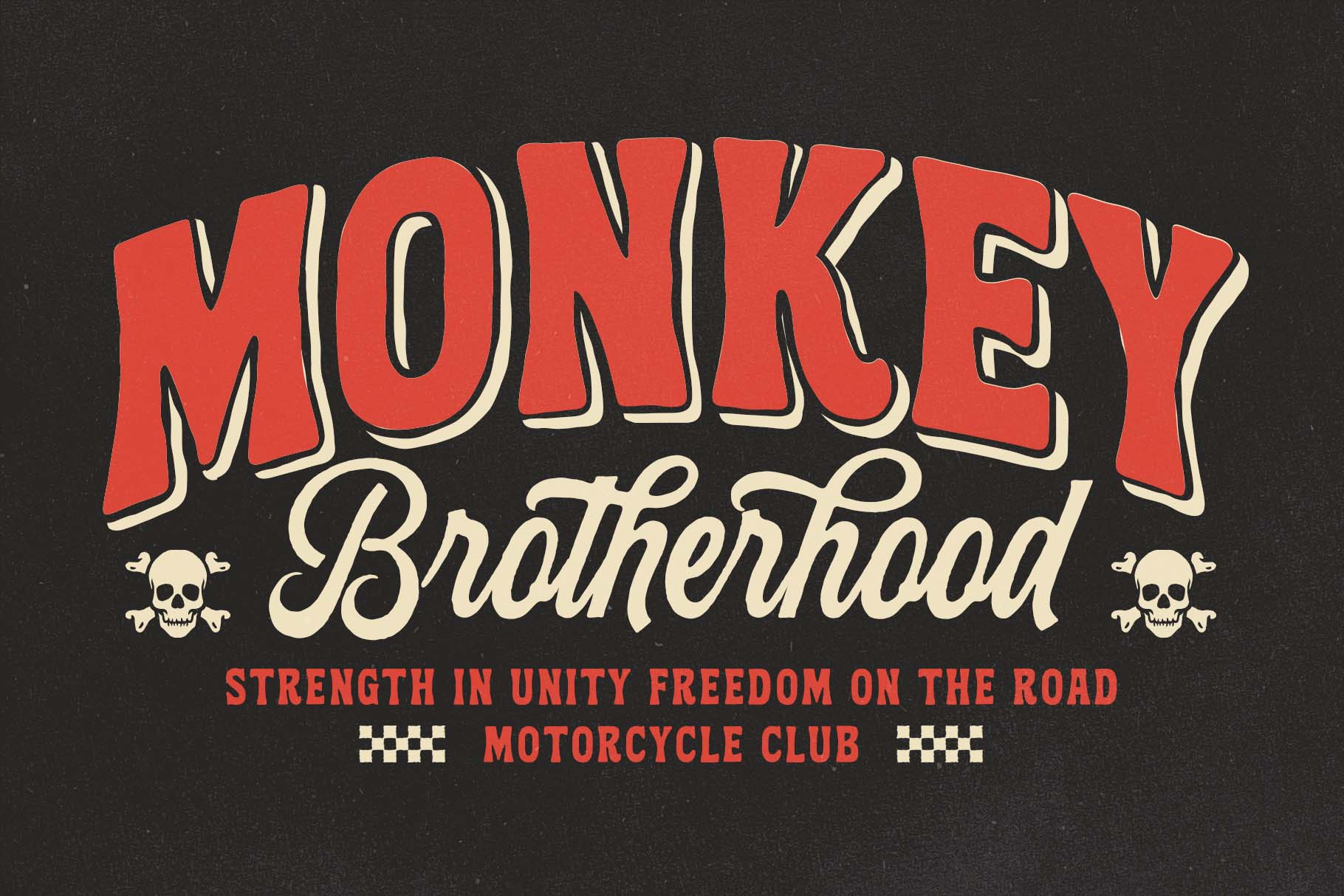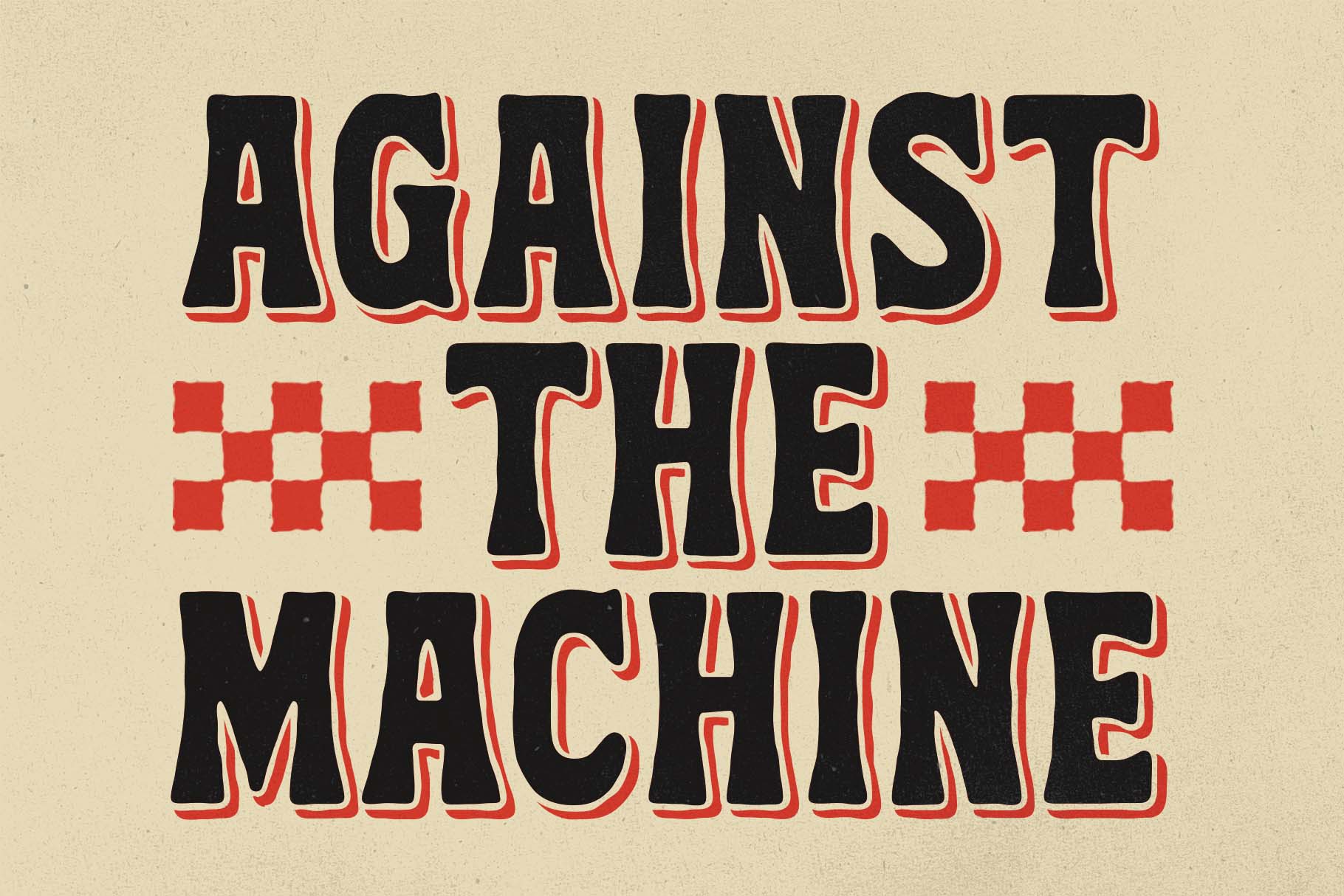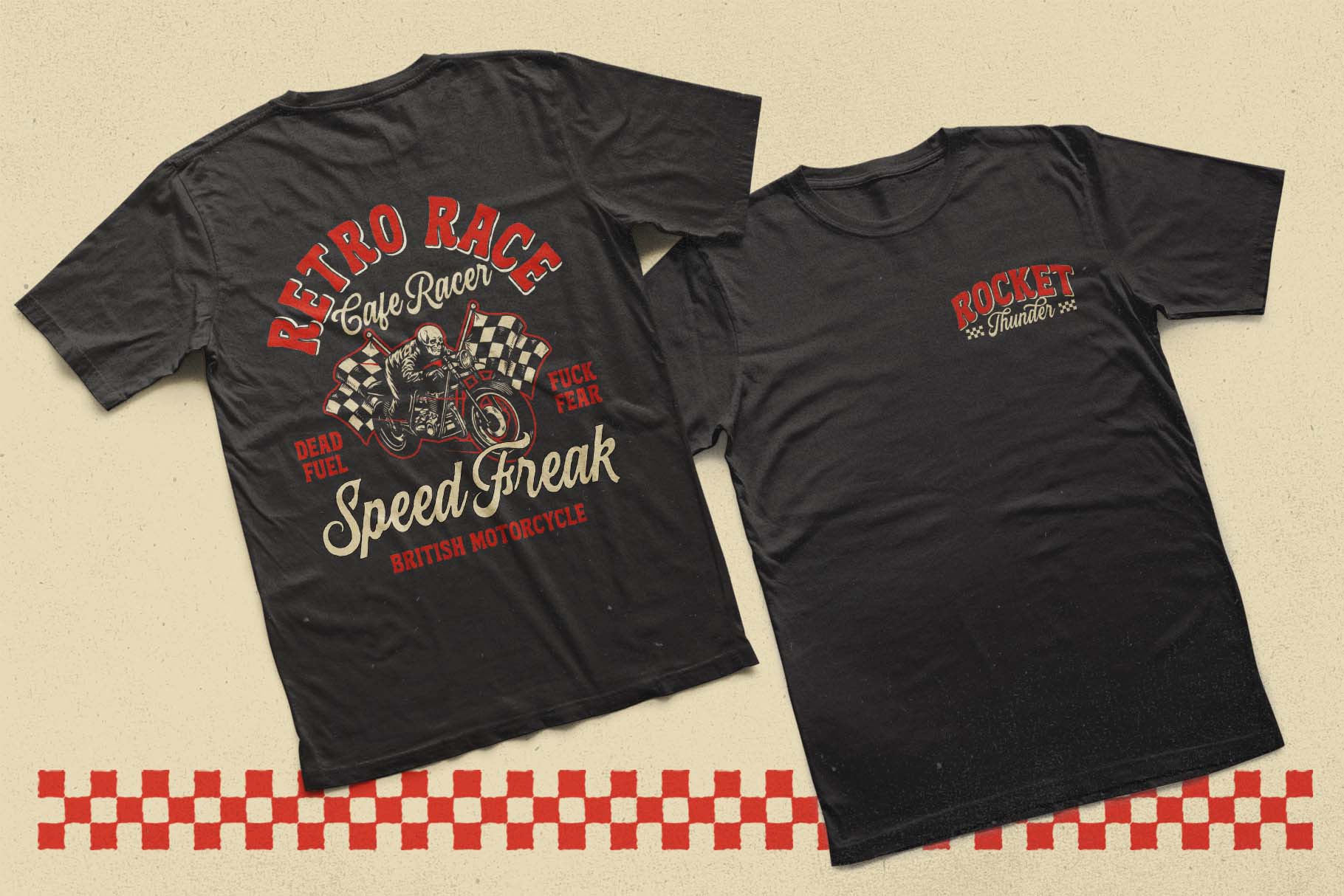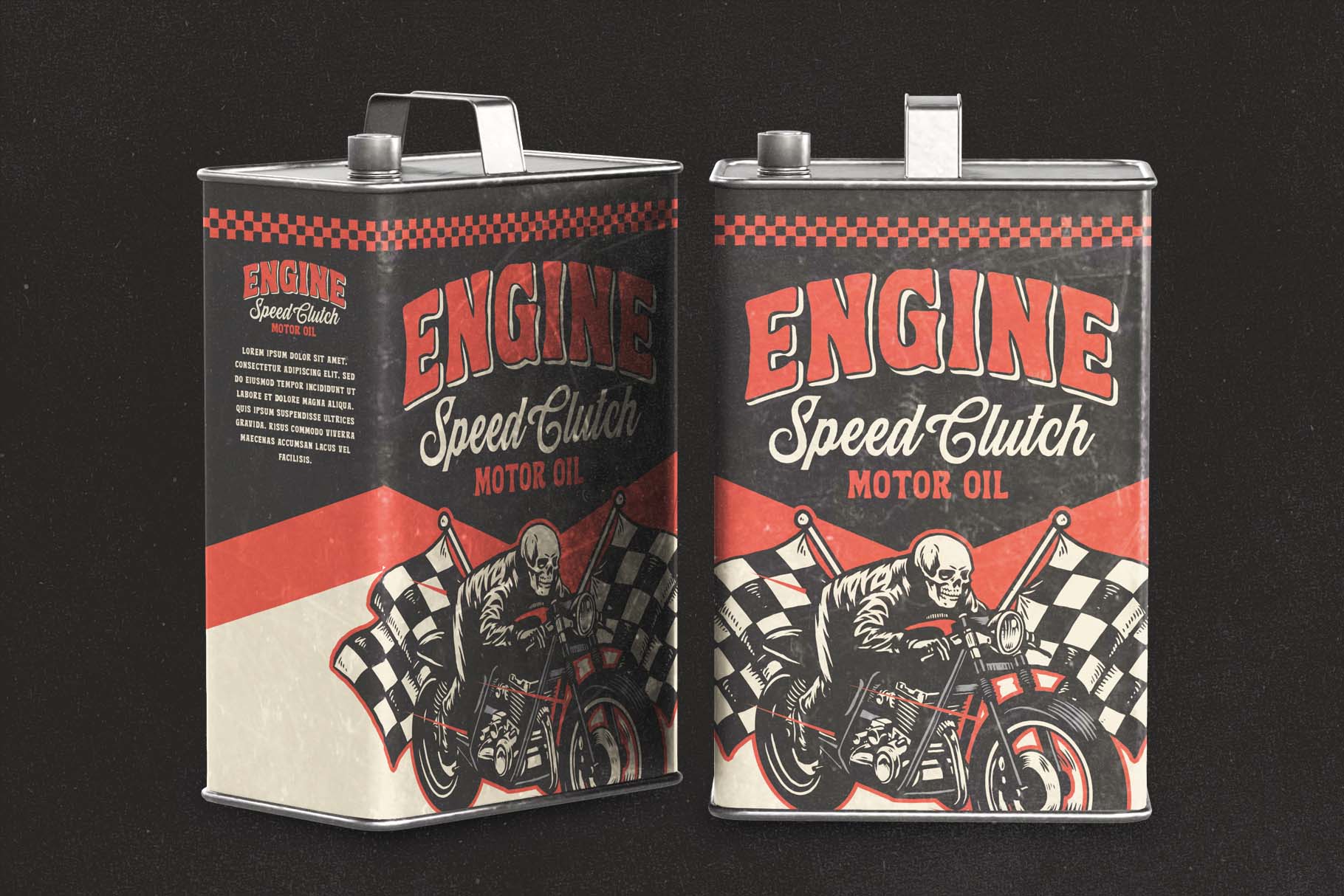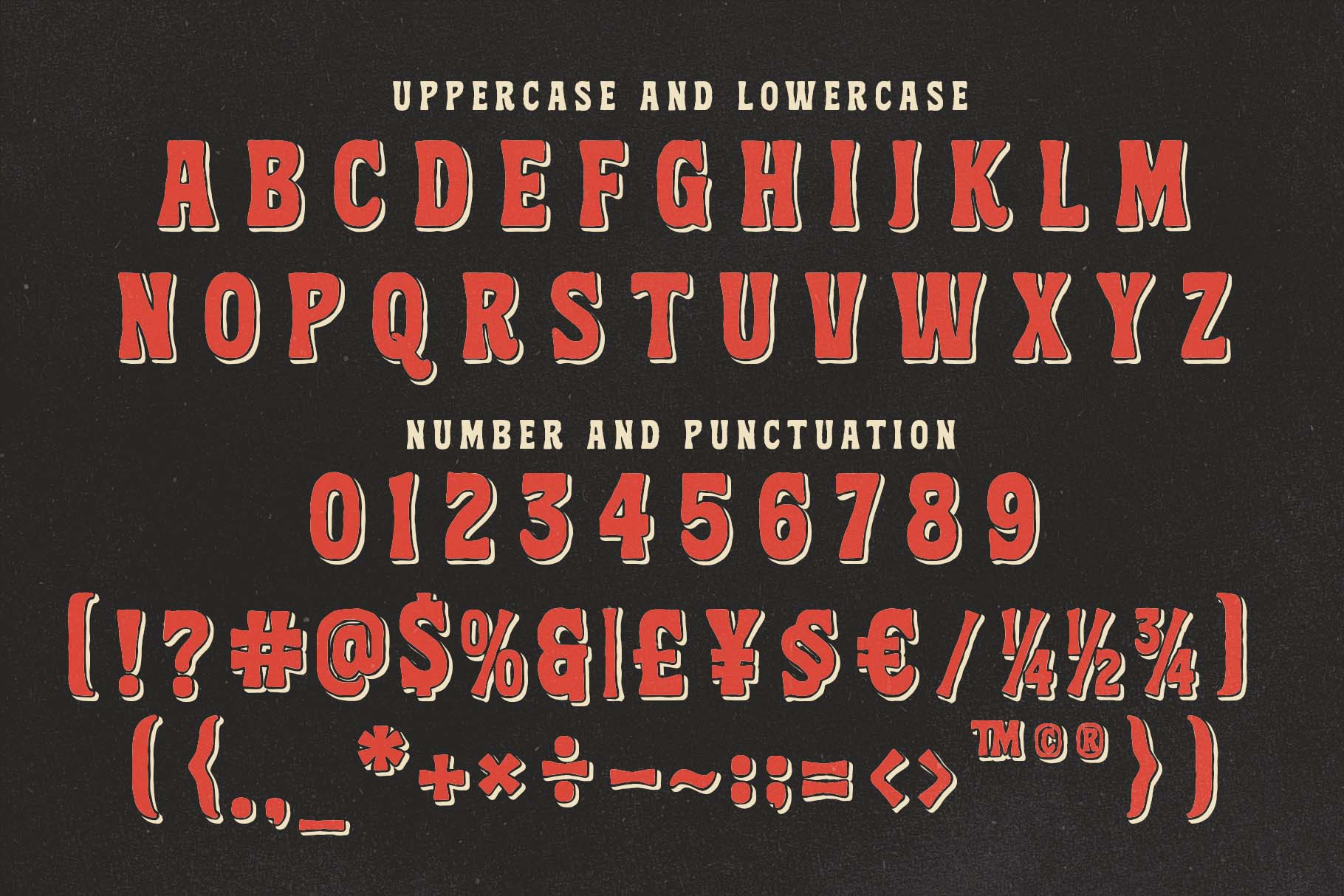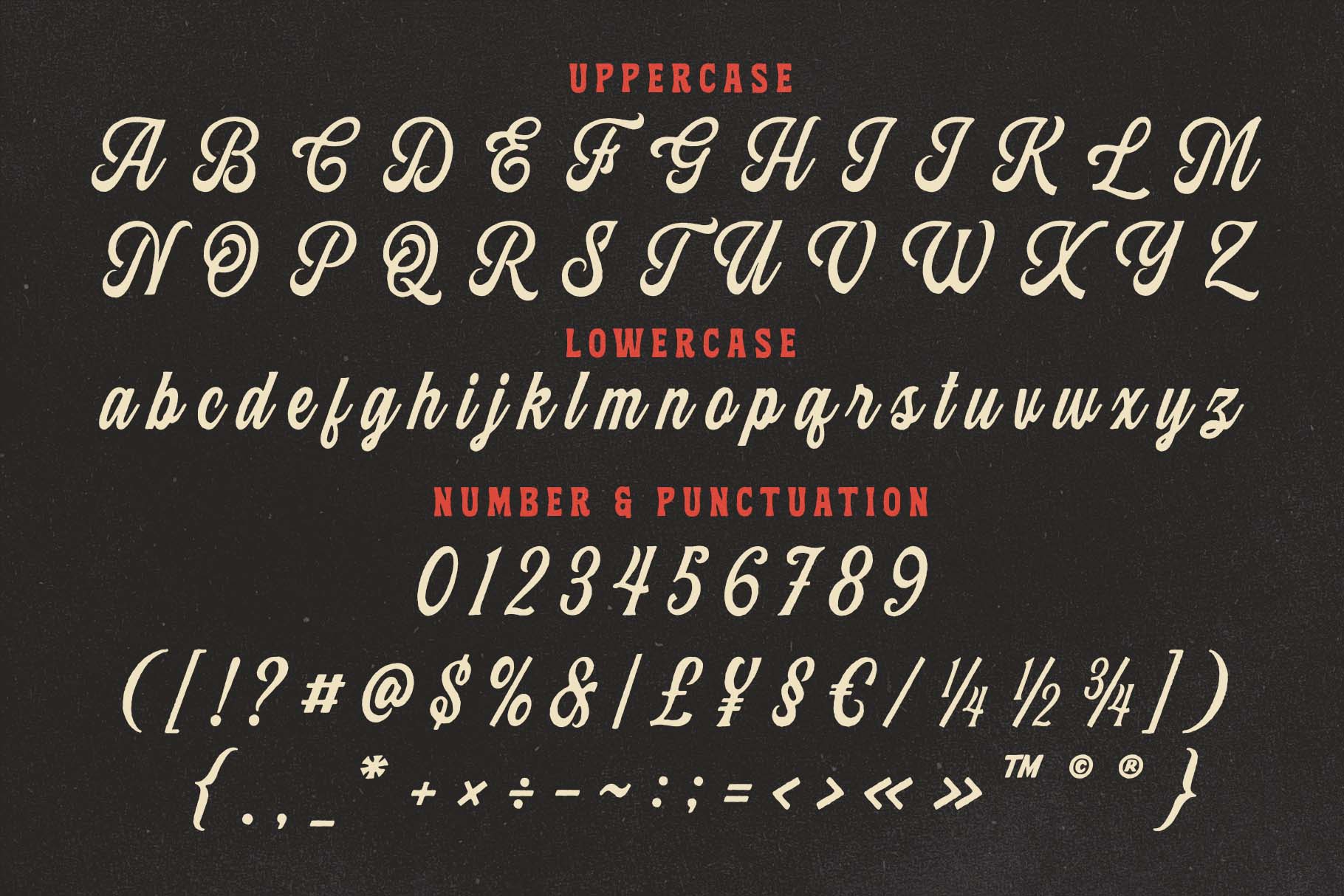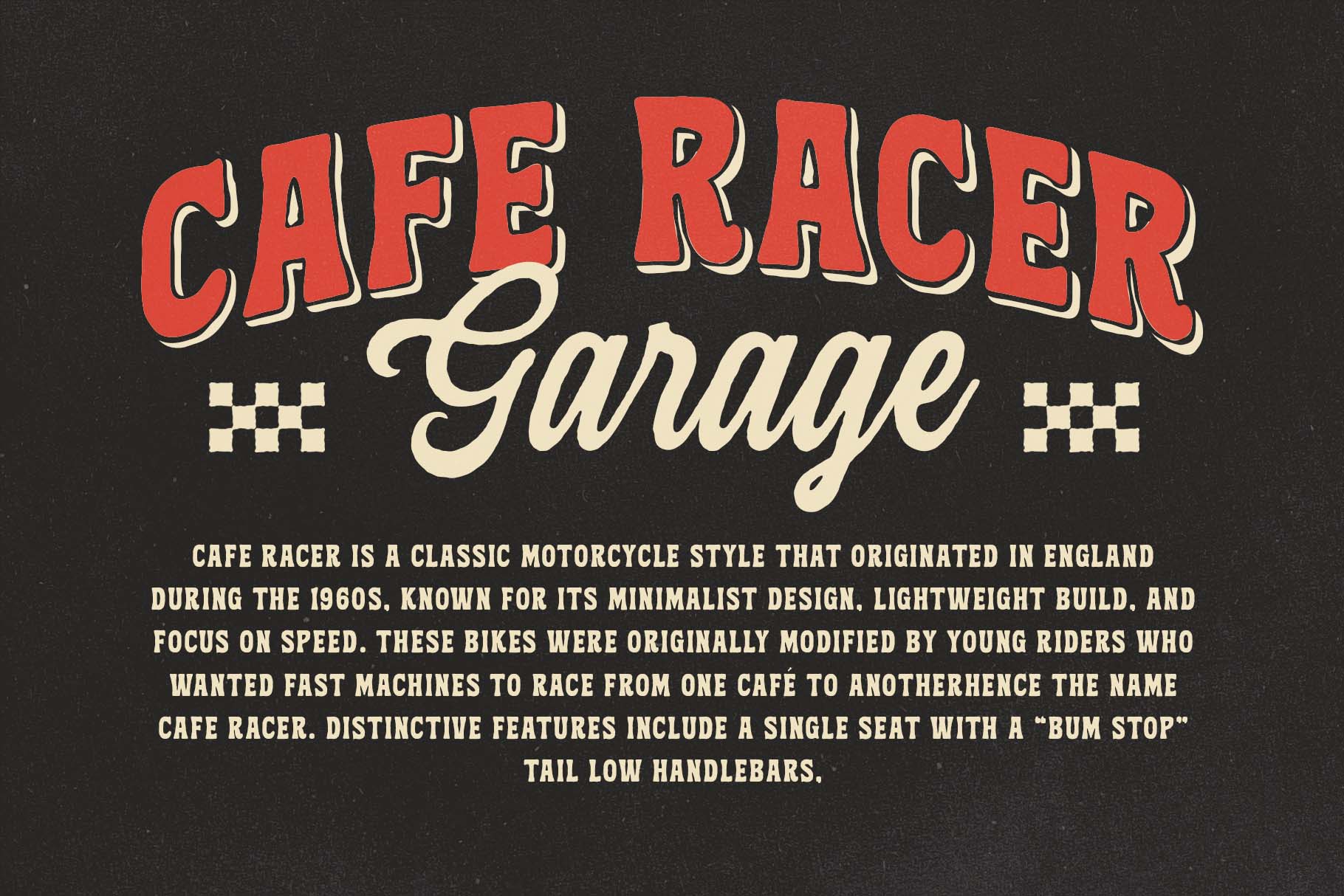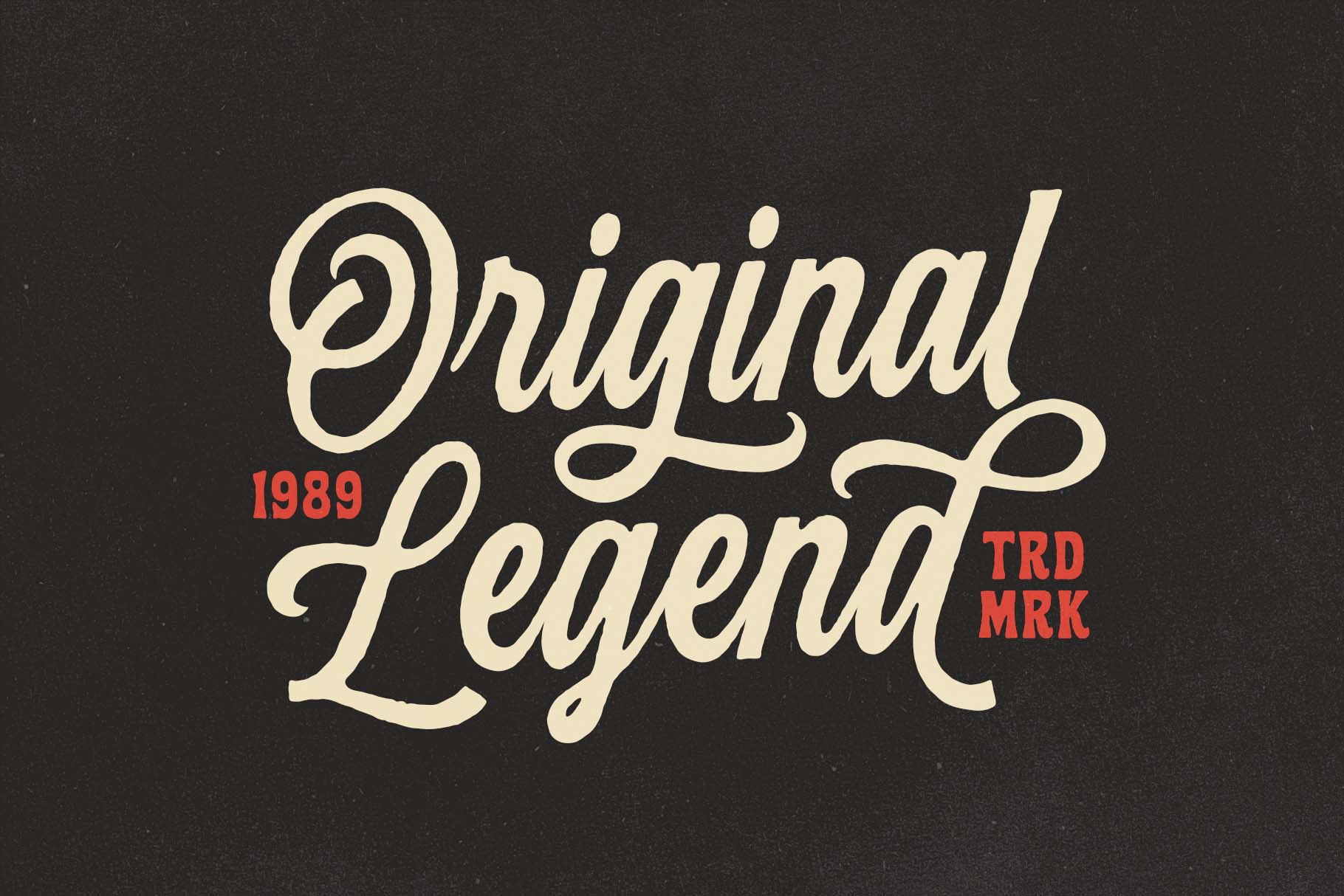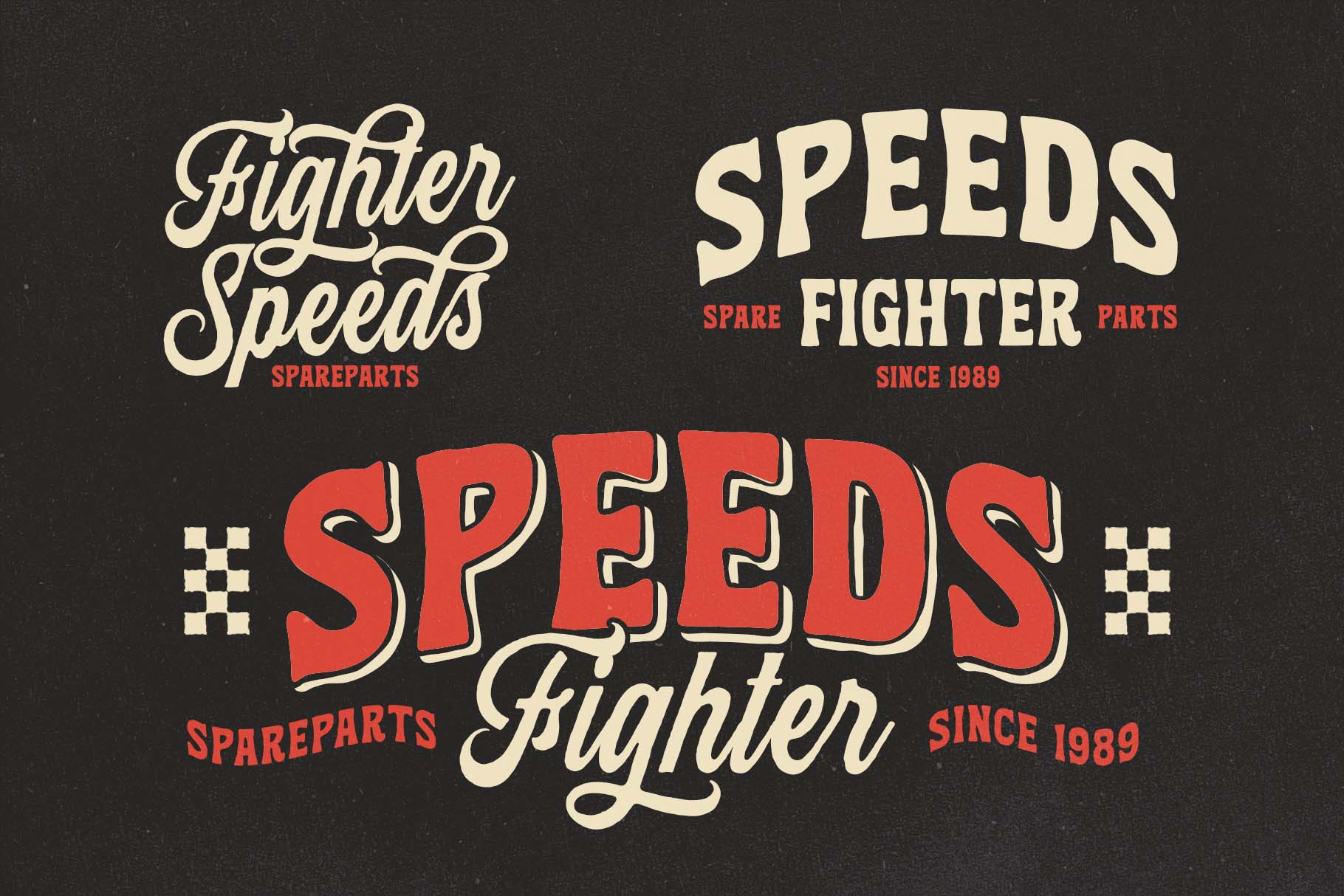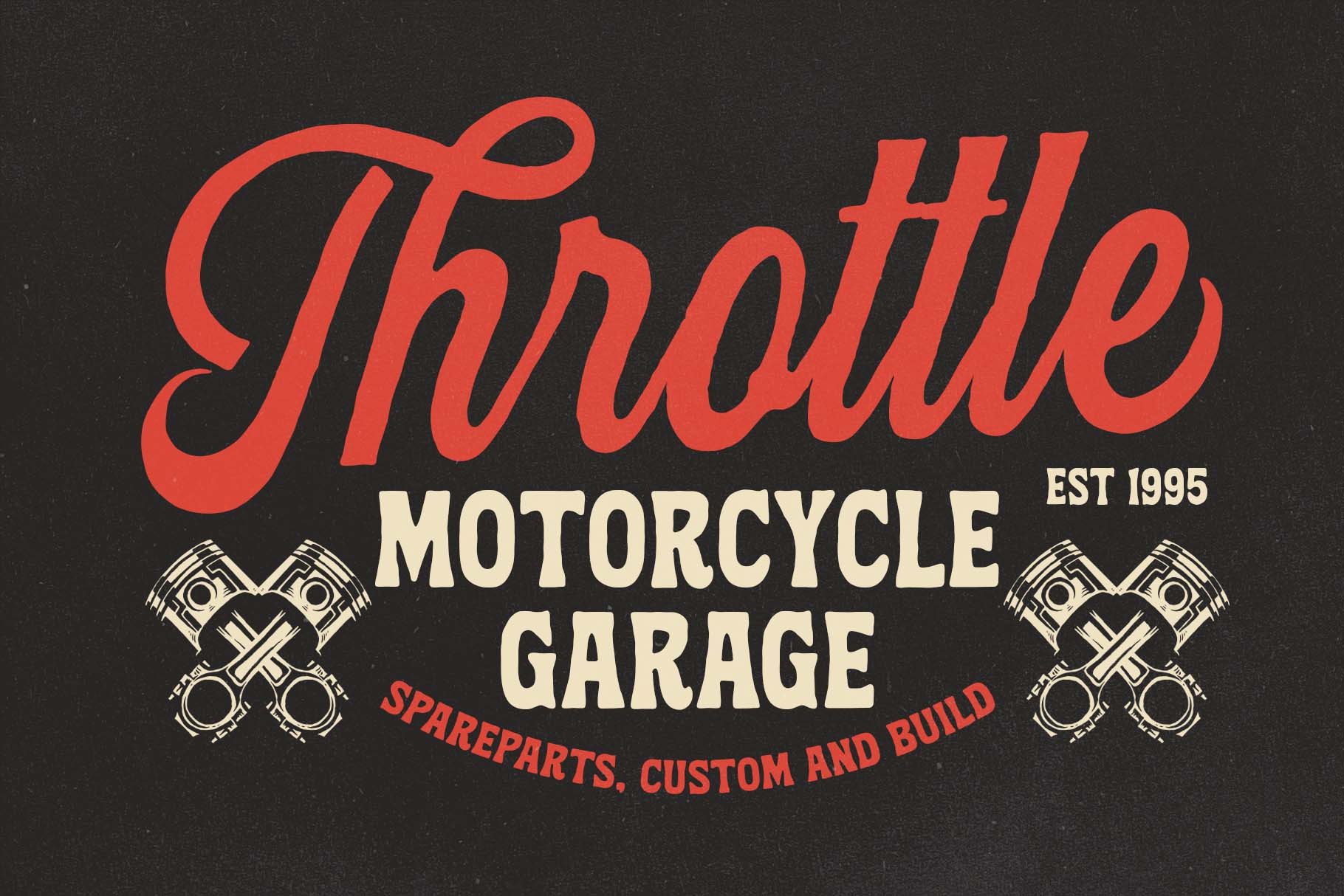
Rocket Thunder a Handmade Duo Font
Rocket Thunder a Handmade Duo Font is made for any professional project branding, such as logotype, watermarks, poster, branding, promotions, product packaging, etc. Every letter has a vintage design. This font comes script and serif style.
Rocket Thunder font includes a full set of vintage uppercase and lowercase letters, numerals and punctuation. This font has a Vintage style. See the previews above to get some inspiration on how to use them. Happy designing!
Rocket Thunder is a handmade duo font featuring a vintage design with script and serif styles. The set includes uppercase and lowercase letters, numerals, and punctuation, provided in OTF and TTF formats across Regular, Shadow, and Script variations, compatible with OpenType-supporting software such as Canva, Adobe Illustrator, Photoshop, InDesign, and CorelDraw.